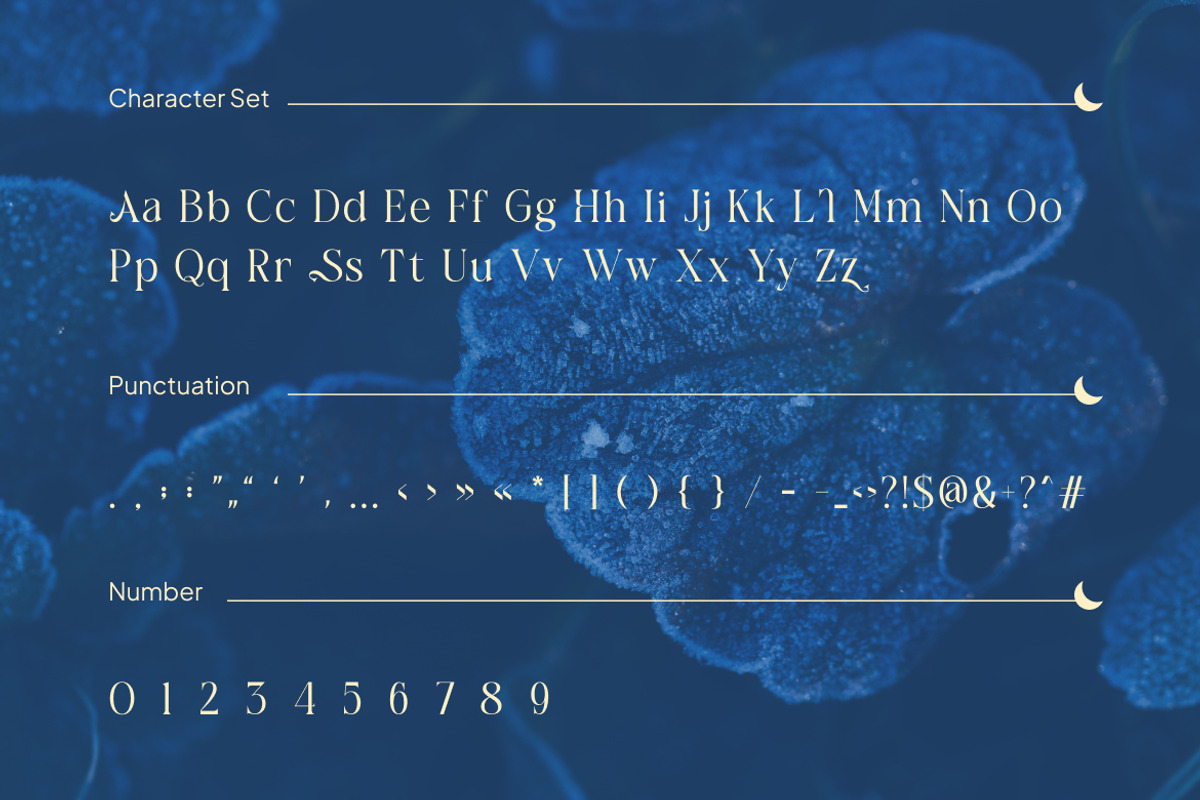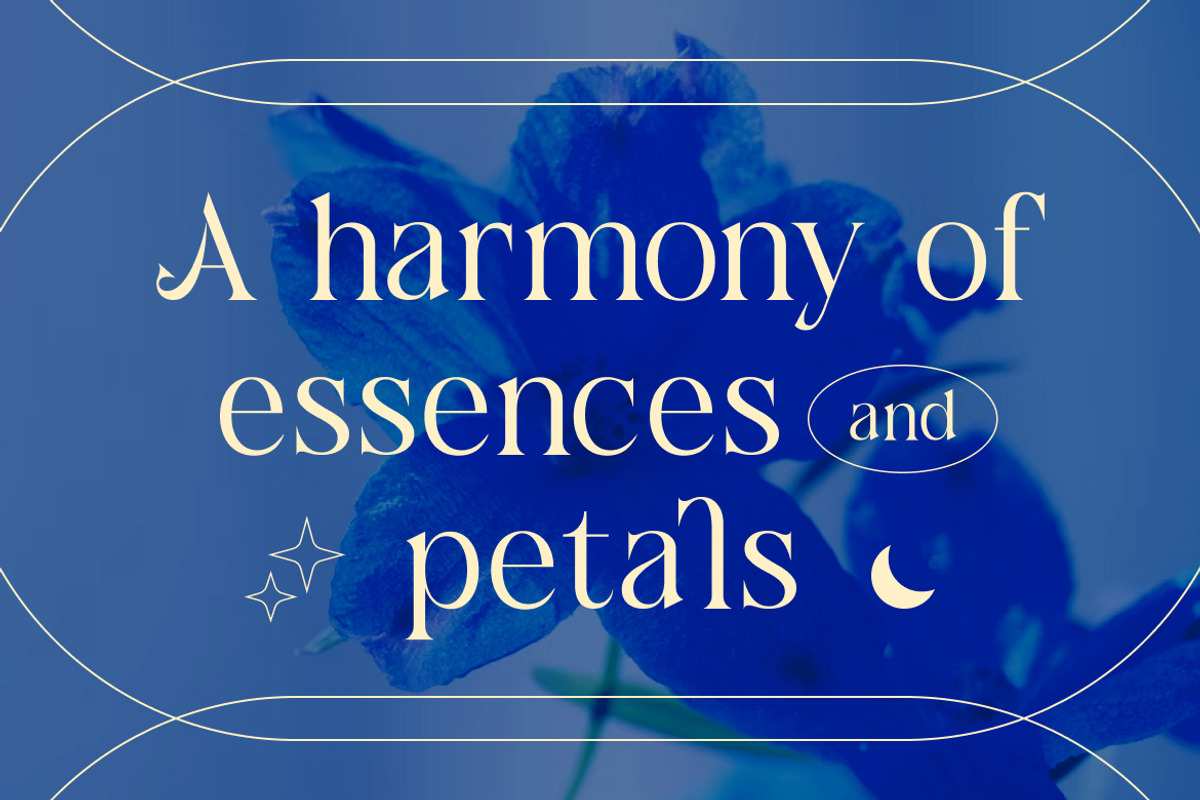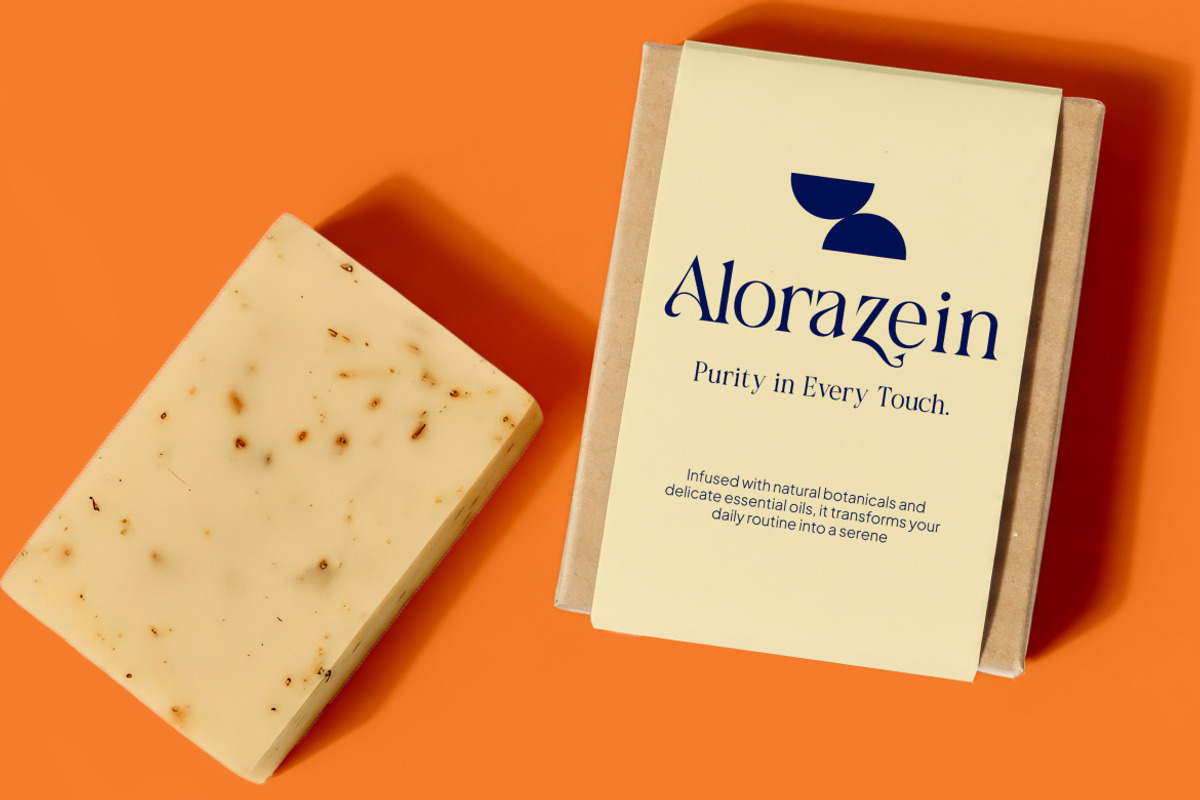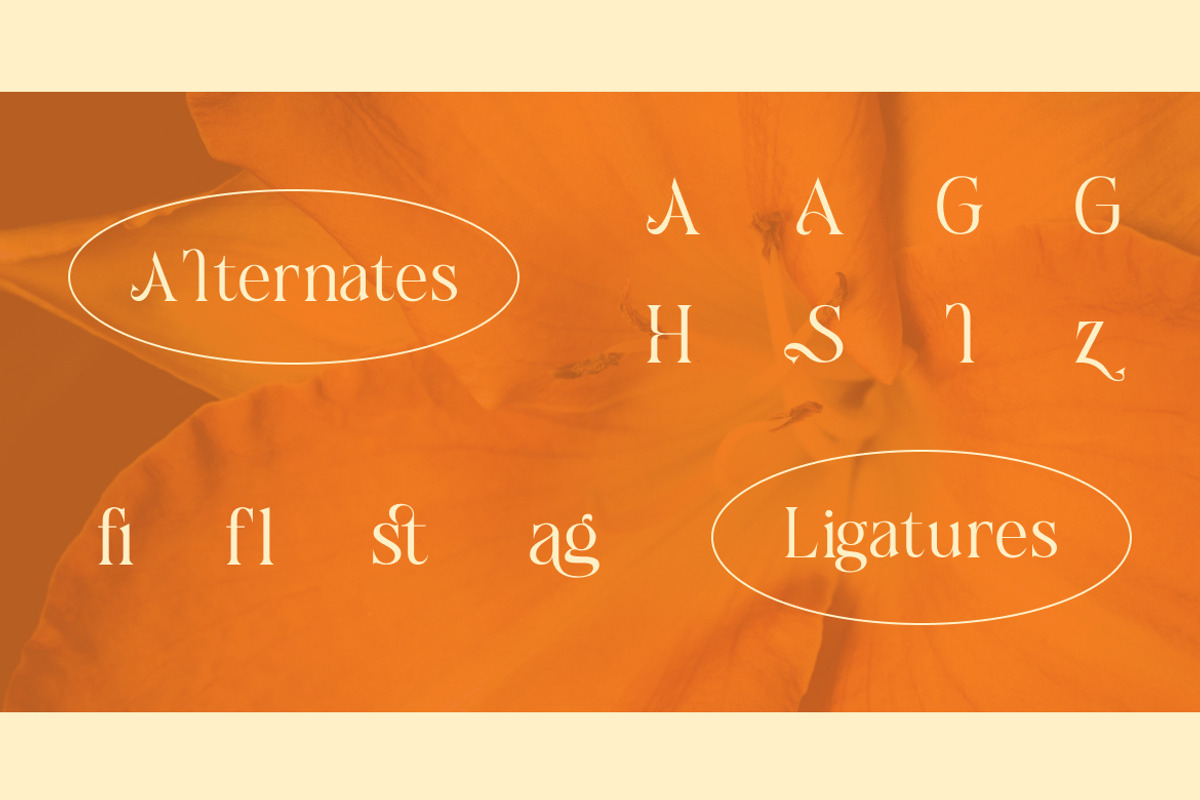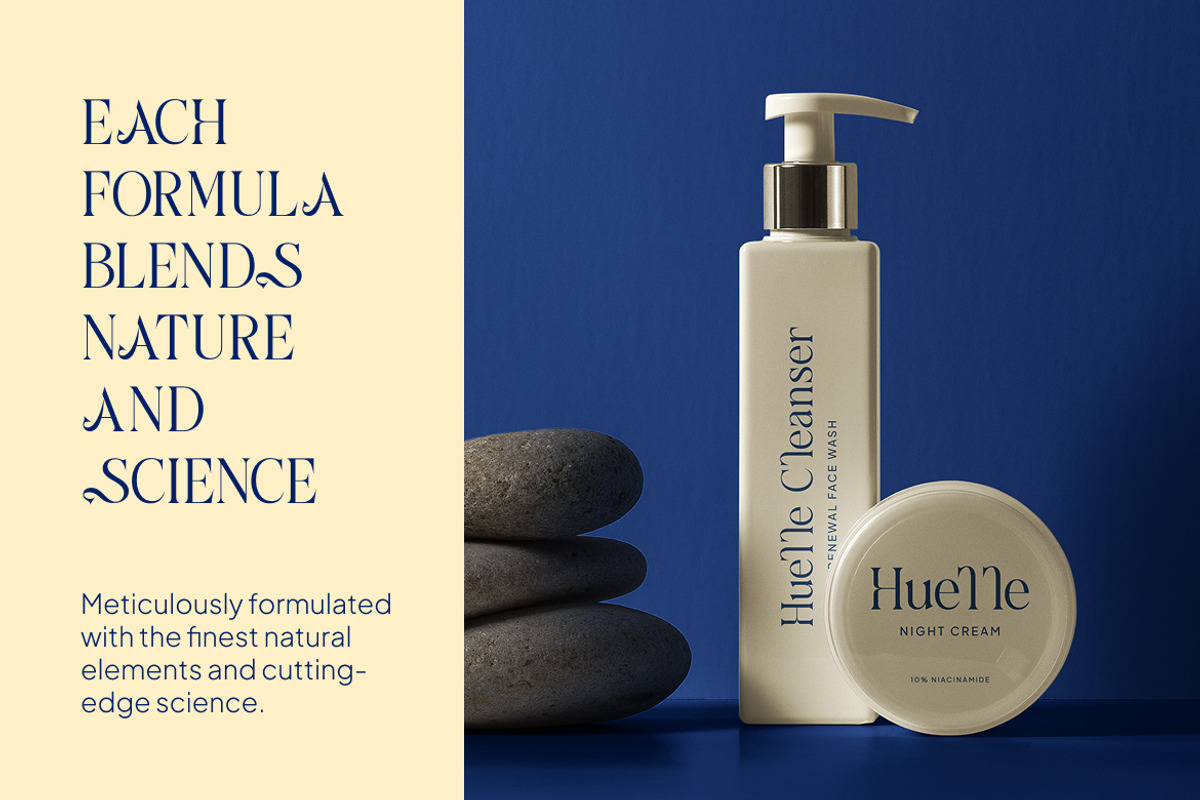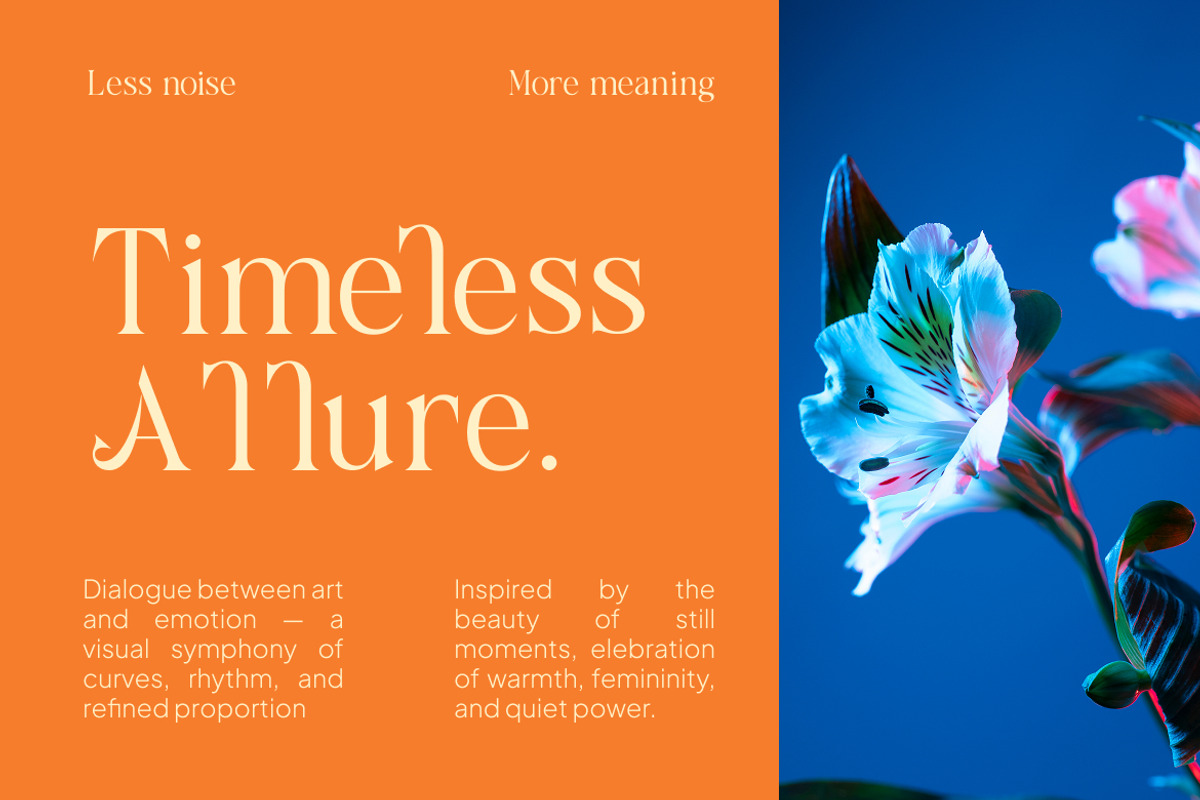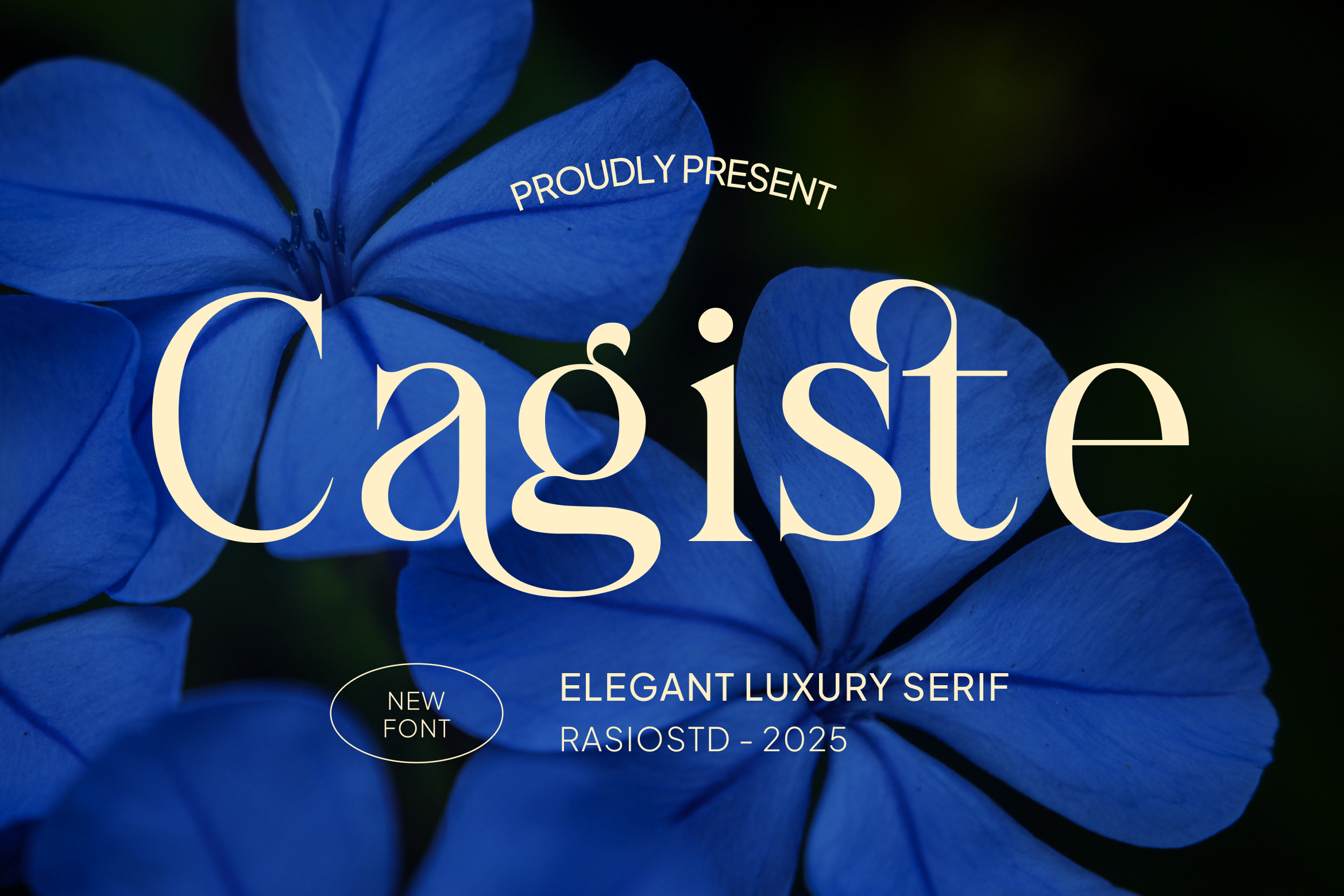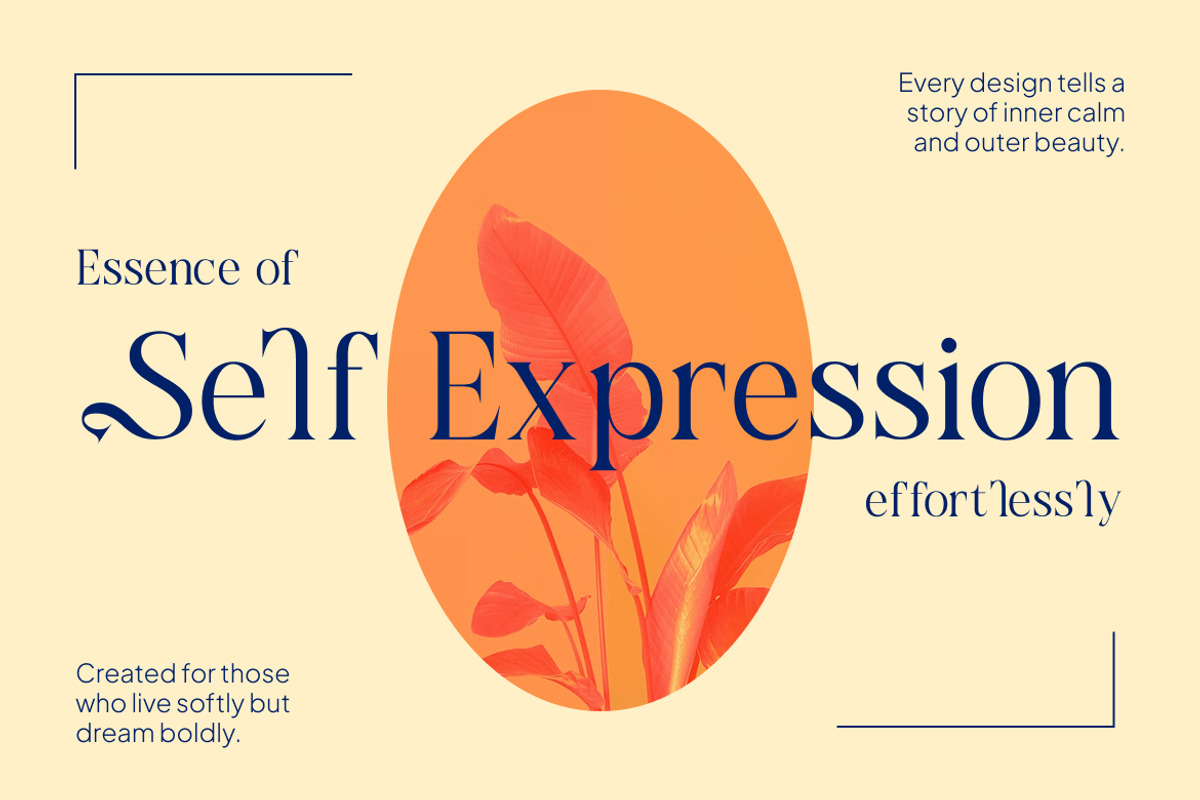
Cagiste Elegant Luxury Serif Font
Cagiste is a refined luxury serif font designed to express elegance, calm, and timeless beauty. Featuring graceful curves, high-contrast strokes, and delicate serif details, this typeface blends classic sophistication with a modern editorial feel. Its balanced proportions and smooth letterforms make Cagiste ideal for premium branding, fashion layouts, and high-end visual storytelling.
Cagiste is designed for projects that require a sense of luxury, elegance, and emotional calm. Its refined serif structure works beautifully for fashion branding, beauty products, editorial layouts, wedding designs, and premium marketing materials where visual sophistication and clarity are essential.
- Elegant high-contrast serif design with refined proportions
- Graceful curves and delicate serif details for a luxurious feel
- Balanced stroke weight with smooth, flowing letterforms
- Classic vertical stress inspired by editorial typography
- Carefully crafted spacing for polished headlines and layouts
- Luxury brand identities seeking elegance and timeless appeal
- Editorial magazines, fashion layouts, and refined book designs
- Beauty, lifestyle, and wedding branding materials
- Premium product packaging and sophisticated labels
- Social media visuals and marketing designs with a polished aesthetic
Cagiste is crafted for designs that speak elegance luxury